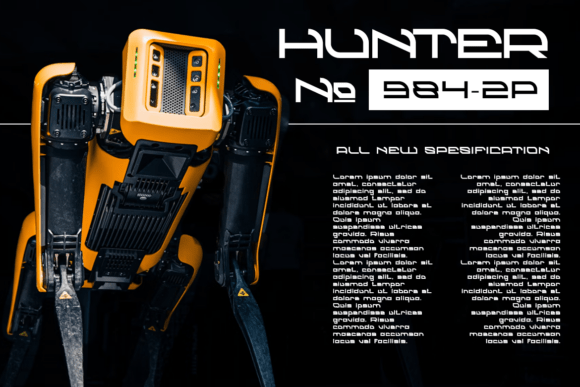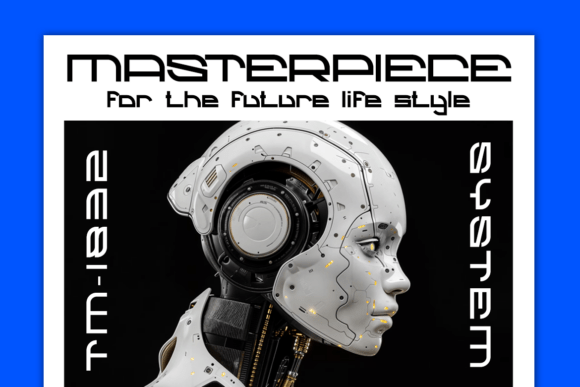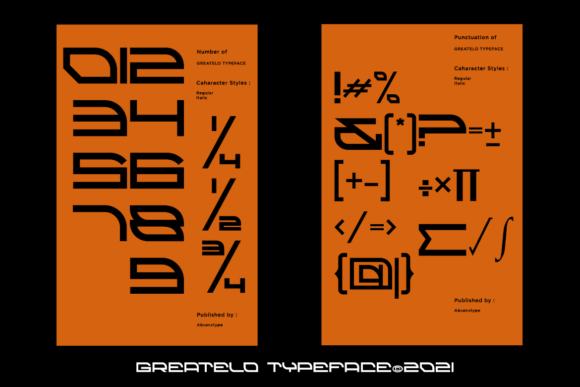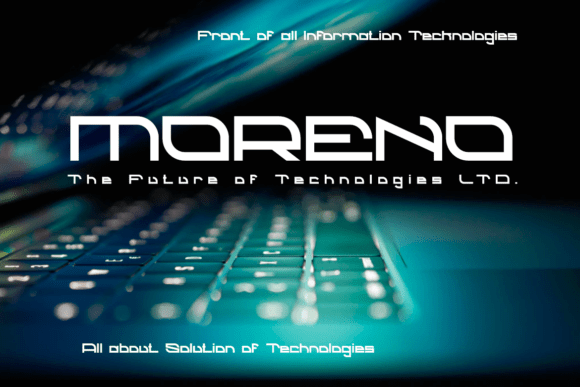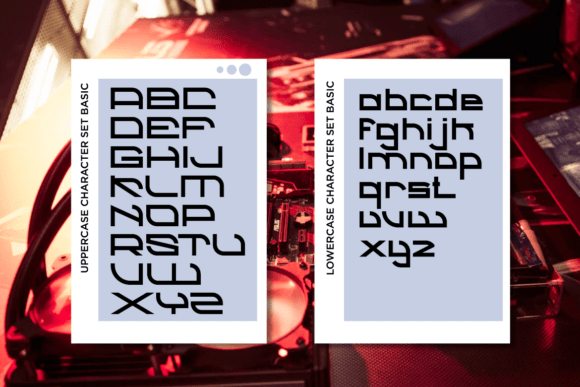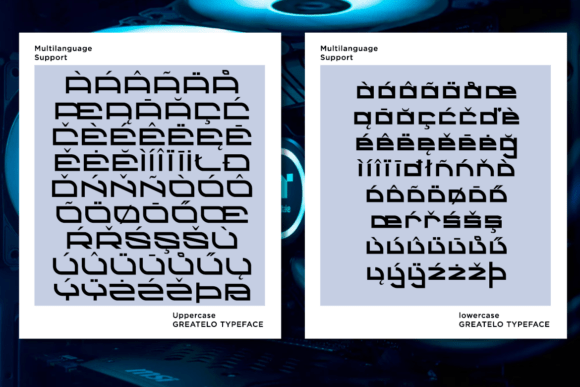
Introducing Greatelo Font: The Future of Modern Design
In the world of typography, fonts play a crucial role in defining the visual identity of a brand, product, or creative project. With the ever-evolving landscape of design, it’s essential to stay ahead of the curve with fresh and innovative typefaces. Greatelo Font is a modern, futuristic typeface that’s taking the design world by storm, offering a bold and visionary look that’s perfect for contemporary branding, digital interfaces, product packaging, and creative visual identities.
The Greatelo Advantage: A High-Tech Aesthetic
Greatelo’s design is characterized by clean lines, geometric shapes, and sharp edges, giving it a distinctively high-tech aesthetic that’s hard to ignore. This futuristic typeface is crafted to bring a sense of innovation and forward-thinking to any design project, making it an ideal choice for designers and crafters looking to push the boundaries of modern design.
Key Features of Greatelo Font
- Clean Lines: Greatelo’s clean lines provide a crisp and precise look that’s perfect for digital interfaces and modern branding.
- Geometric Shapes: The font’s geometric shapes add a touch of sophistication and elegance, making it suitable for high-end product packaging and visual identities.
- Sharp Edges: Greatelo’s sharp edges give it a bold and edgy look that’s sure to grab attention in any design project.
Perfect for Contemporary Branding
In today’s competitive market, branding is more crucial than ever. A well-designed brand identity can make all the difference in establishing a strong presence and connecting with your target audience. Greatelo Font is designed to help you create a bold and memorable brand image that’s sure to stand out. Its modern and futuristic look makes it perfect for:
- Logo Design: Greatelo’s unique and bold design makes it an excellent choice for logo creation.
- Brand Guidelines: The font’s clean lines and geometric shapes provide a clear and consistent visual language for brand guidelines.
- Advertising: Greatelo’s attention-grabbing design makes it perfect for advertising campaigns that need to make a lasting impression.
Ideal for Digital Interfaces
As digital interfaces continue to dominate the design landscape, Greatelo Font is perfectly suited for:
- Web Design: The font’s clean lines and sharp edges make it an excellent choice for web design, providing a crisp and precise look that’s perfect for digital screens.
- Mobile Apps: Greatelo’s bold and futuristic design makes it ideal for mobile app design, adding a touch of innovation and modernity to your interface.
- Digital Products: The font’s geometric shapes and clean lines provide a sophisticated and elegant look that’s perfect for digital products, such as e-books, games, and software.
Unleash Your Creativity with Greatelo Font
Whether you’re a designer, crafter, or simply a creative enthusiast, Greatelo Font offers a world of possibilities for bringing your ideas to life. With its bold and visionary look, this modern typeface is sure to inspire and elevate your design projects. So why wait? Explore the limitless potential of Greatelo Font today and discover a new world of creative possibilities.
Greatelo Font is a game-changing typeface that’s redefining the world of modern design. Its unique blend of clean lines, geometric shapes, and sharp edges makes it the perfect choice for designers and crafters looking to create bold and memorable designs. Whether you’re working on a branding project, digital interface, product packaging, or creative visual identity, Greatelo Font is the perfect tool to help you bring your vision to life.